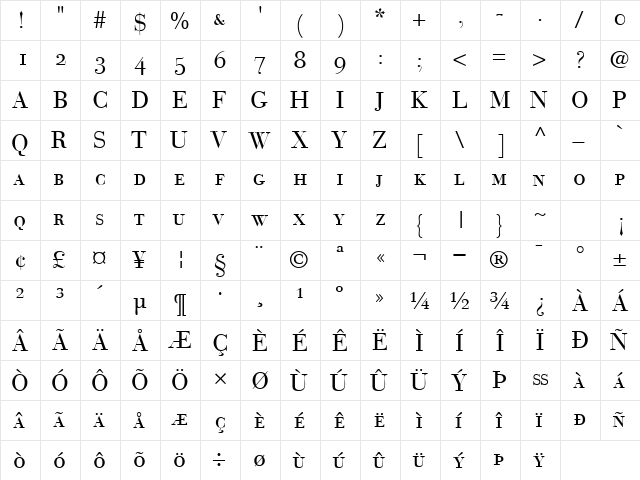
BodoniRecutOSSCapsSSK Regular
Design Context for BodoniRecutOSSCapsSSK Typeface
BodoniRecutOSSCapsSSK is a composed and adaptable typeface that performs quietly and consistently across a wide range of design contexts.